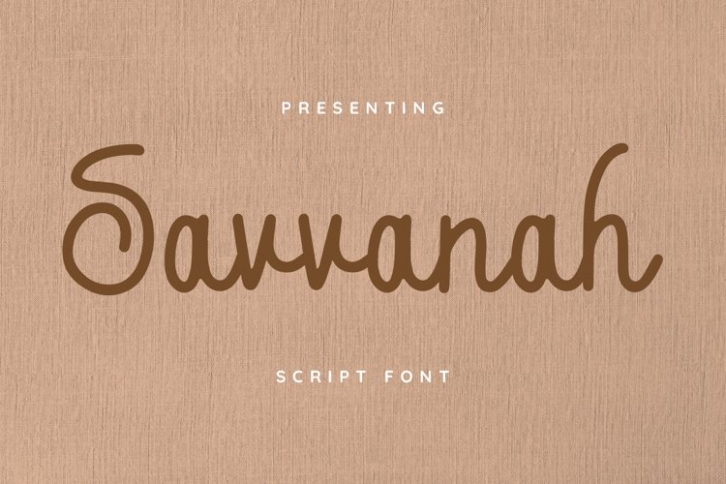
Savannah is a trendy and unique font with an authentic style. It was designed by plusstore and it's a great choice for creative people who need such a font. It was released on August 31, 2021 and the file size is 16.75 MB. Savannah will add an organic vibe to any design idea!